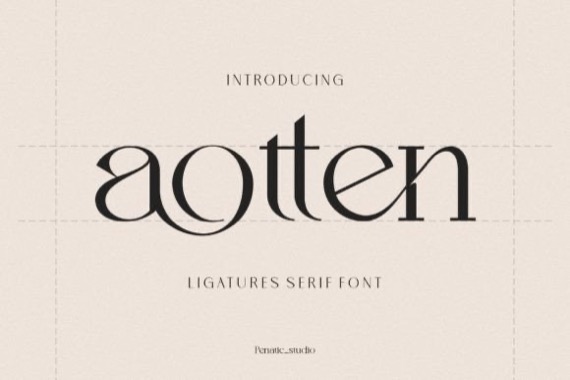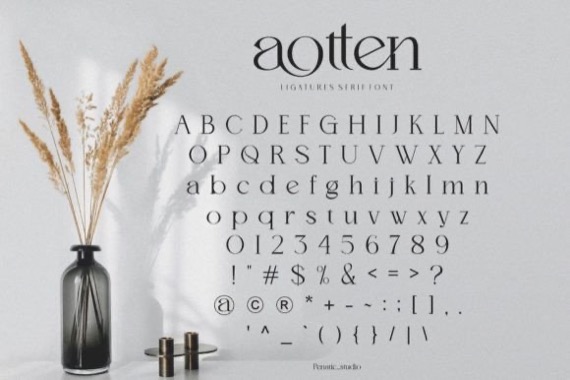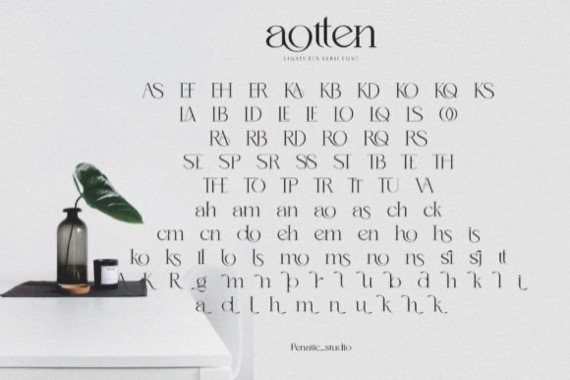
AOTTEN is a modern and classy Ligatures serif font that was created and published by Penatic Studio. Modern and elegant Serif font, lots of binders, and alternatives. Easy to use and very suitable for all your work in arranging letters. As in branding, logos, invitations, masthead, and more.
Aotten Serif Font